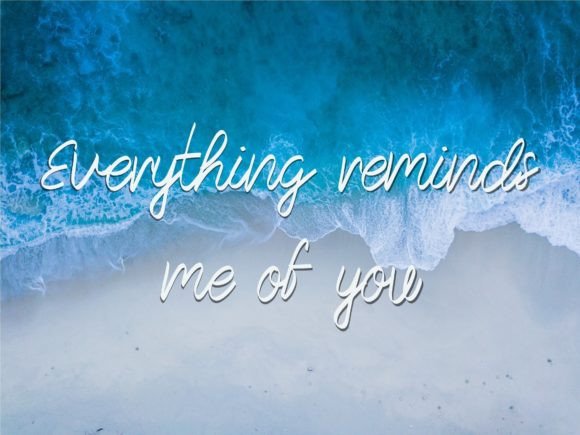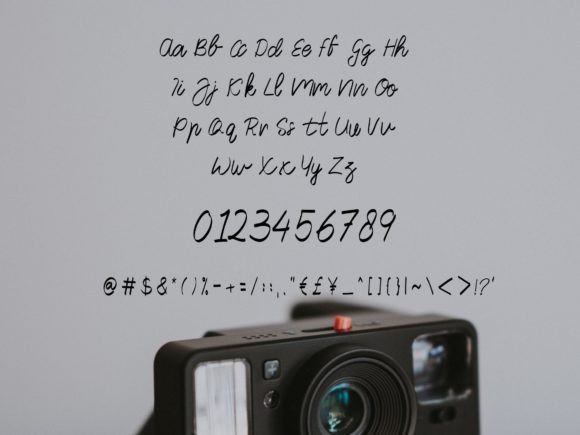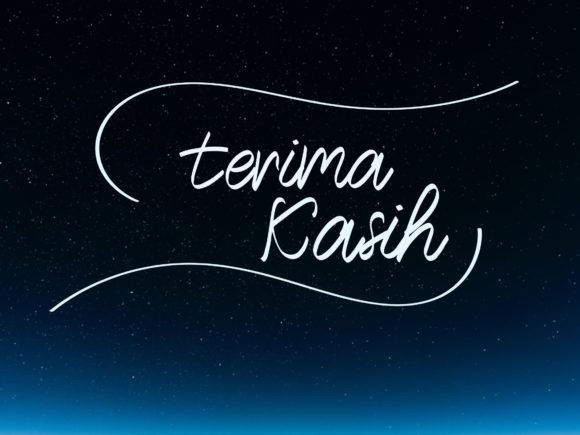
Introduction to Montiwa Font
Montiwa is a sweet and modern handwritten font.
This gentle font will look gorgeous on a variety of design ideas It will add a joyful and romantic touch to each of your projects.
Key Features of Montiwa Font